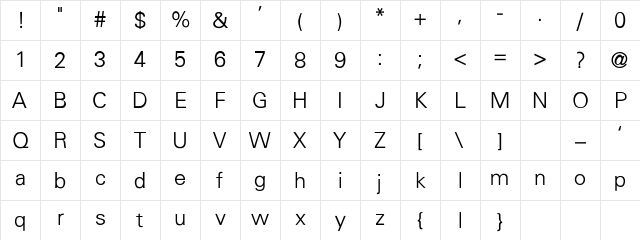
Univers-Light Light
Univers-Light Family
Complete Univers-Light Light glyph index. Displaying only characters natively supported by Univers-Light Light font.
Design Context for Univers-Light
Univers-Light is a composed and adaptable typeface that performs quietly and consistently across a wide range of design contexts. Its slender proportions lend an understated elegance to any composition.